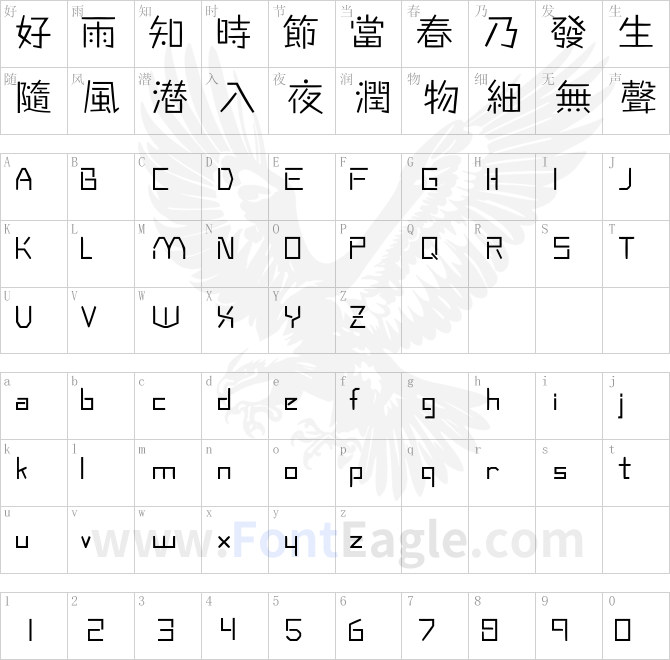
- Font name:方正稚艺繁体
FZZhiYi-M12T is a great font, widely used in graphic design, single-page menu design, poster design and other fields, and is deeply loved by designers.FZZhiYi-M12T download.